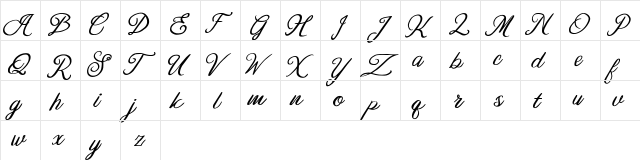
Emerland FREE Regular
Design Context for Emerland FREE Typeface
Emerland FREE takes a measured approach to typography — its balanced proportions and neutral character make it a reliable workhorse for both digital and print work.